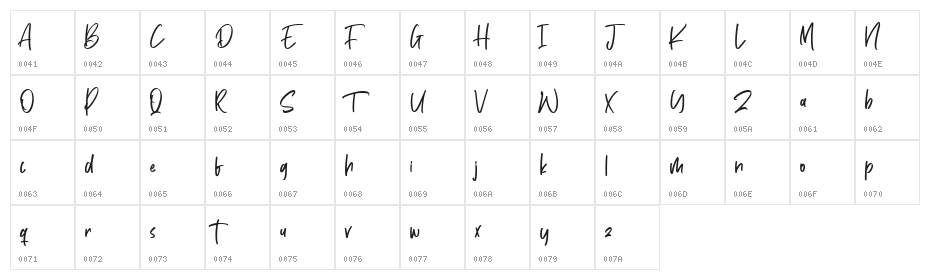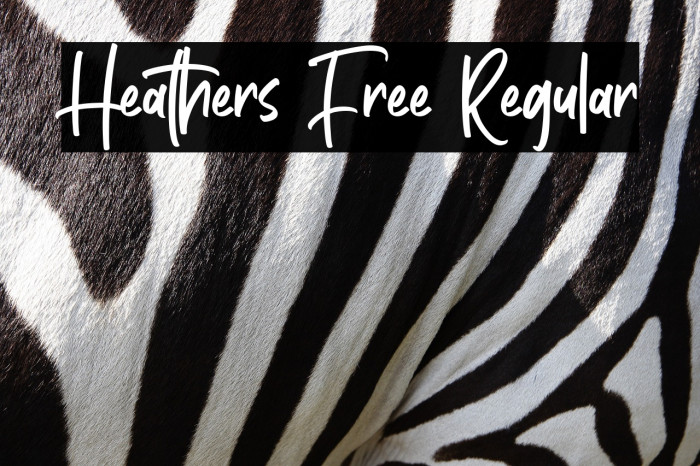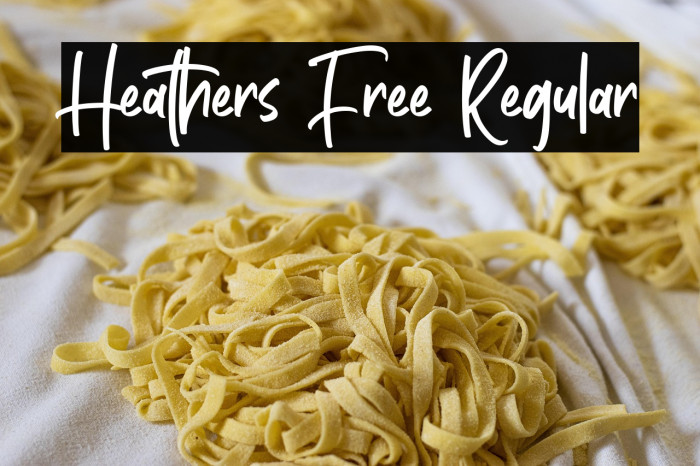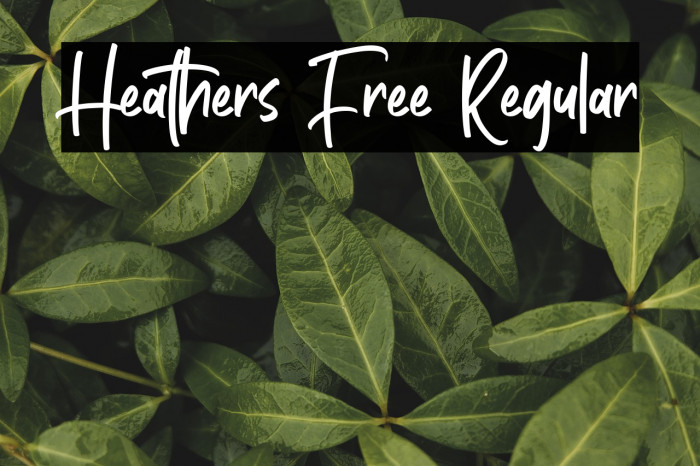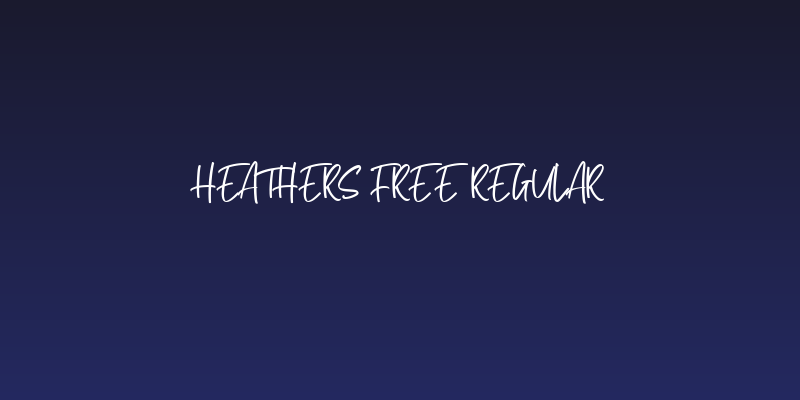
Heathers Free Regular Font
Heathers Free Regular Description
This font exudes a lively and energetic vibe with its handwritten style, characterized by fluid and dynamic strokes. The letters are slightly slanted, giving it a casual yet stylish appearance. The uppercase and lowercase letters maintain a consistent flow, while the numbers and special characters blend seamlessly with the overall design. The strokes vary in thickness, adding a touch of personality and flair. This font is perfect for projects that require a personal and informal touch, such as invitations, greeting cards, or creative branding.
| Overall Style | Casual, Energetic |
| Proposed Projects | Ideal for invitations, greeting cards, personal branding, and creative projects. |